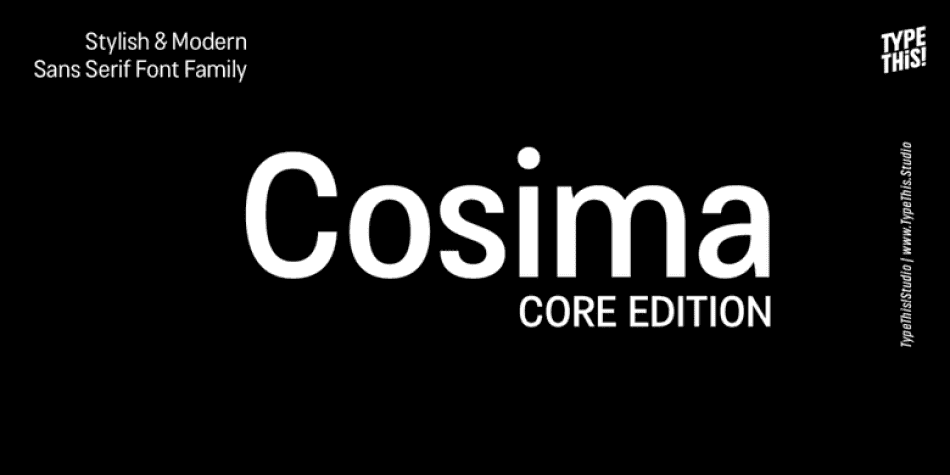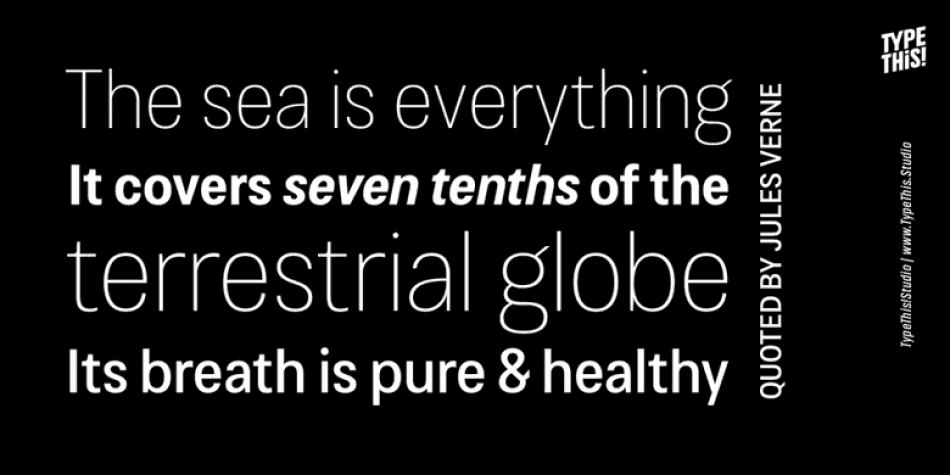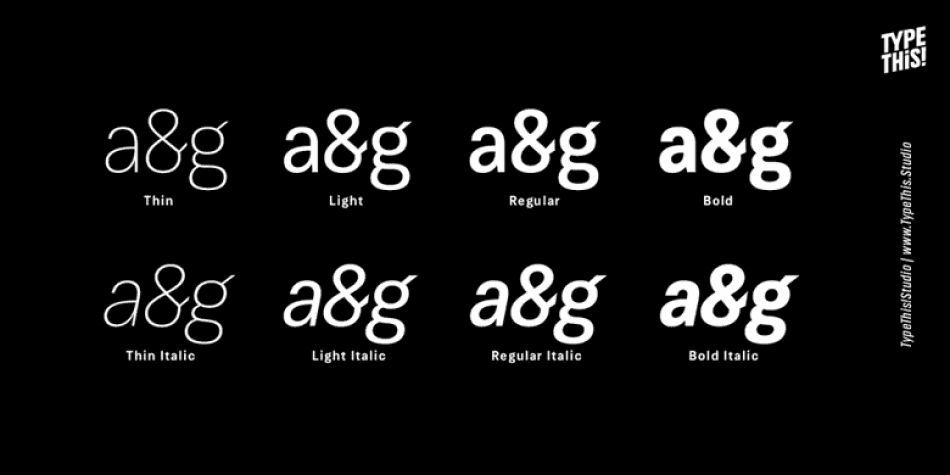
Cosima Core Font is an attractive sans serif font with open character openings, consistent distribution of black and white shades and excellent accessibility. When creating brands or user interfaces for mobile devices, choosing distinctive typefaces is essential; when creating magazines, apps or editorials it forms the cornerstone.